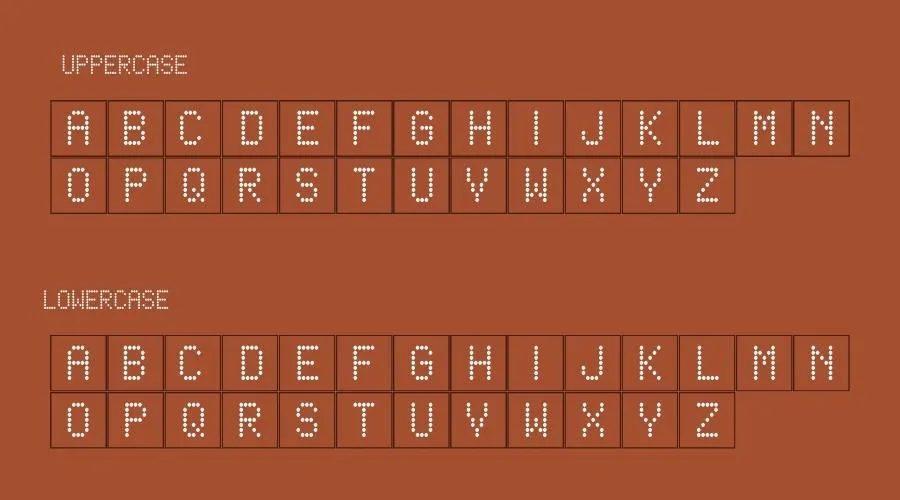
Score Board Font
About Score Board Font
In this post, we shall present to you an exquisite and gorgeous texture known as the name of Score Board Font. This texture was developed by a well-known typographic designer Bou Fonts and it looks like the techno texture family.
The online generator tool of the Score Board texture will help you to transform all your normal or simple textures into stylish and modern shapes. It's stylish and dotes shape texture will help you to make outstanding projects and is similar to the Erbos Draco Open NBP Font.
This texture glyph has a fixed character set but it still tends to make a report. The high x-height and open letterforms give this font a good appearance for visitors.